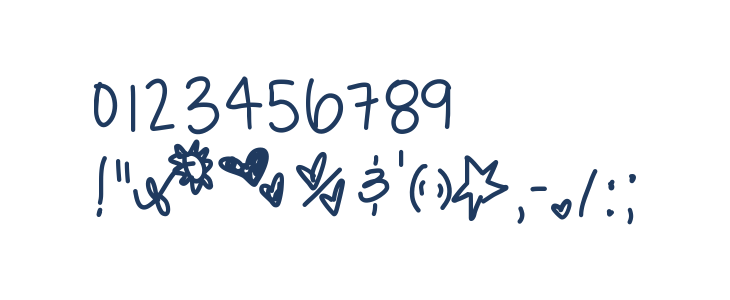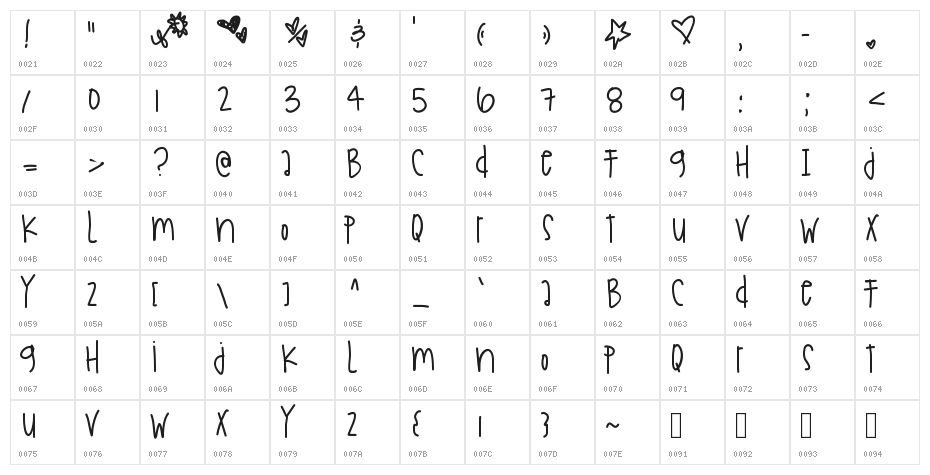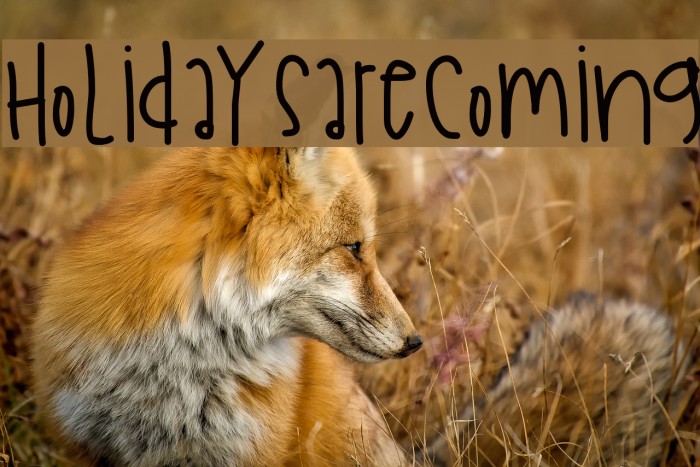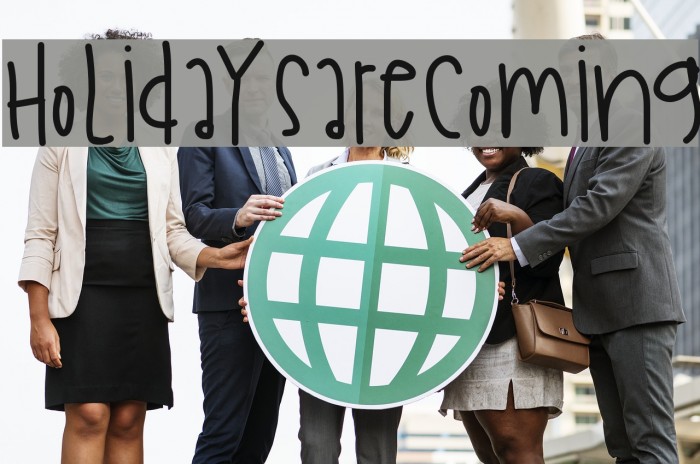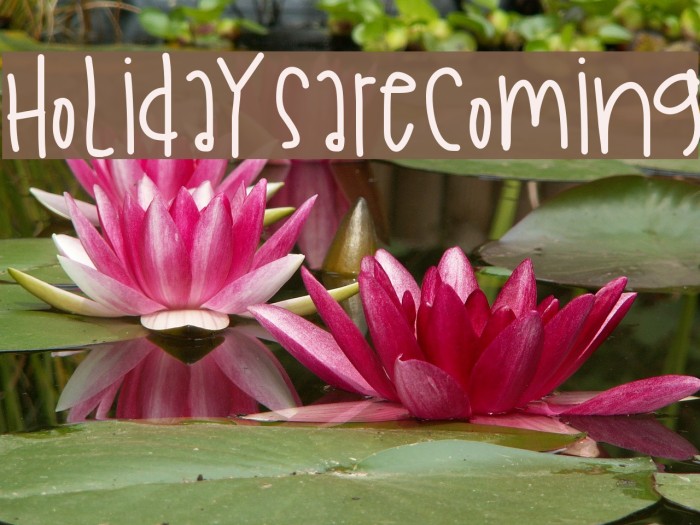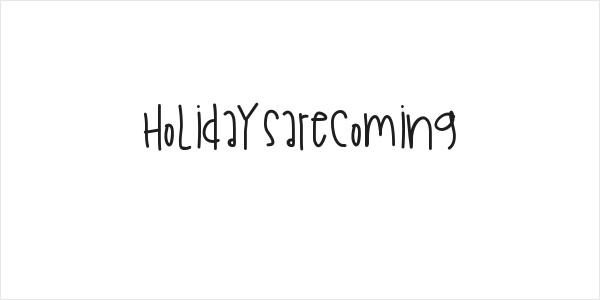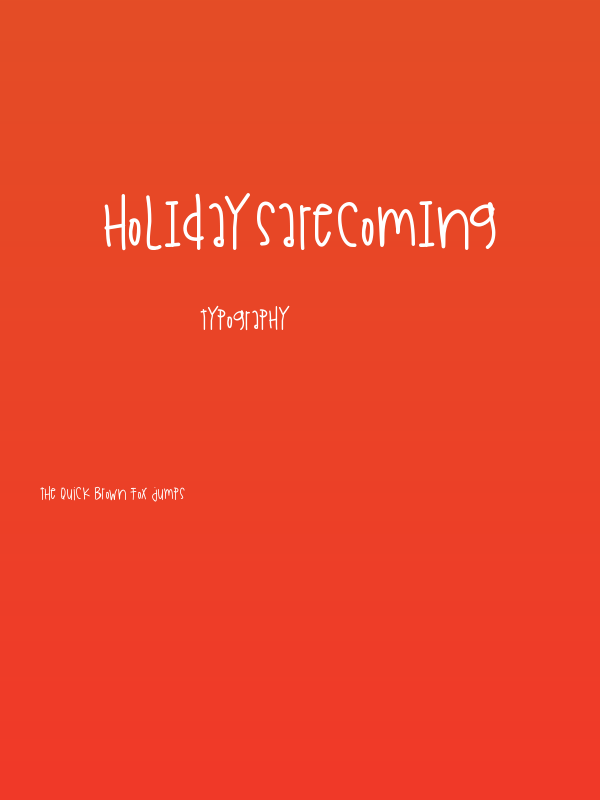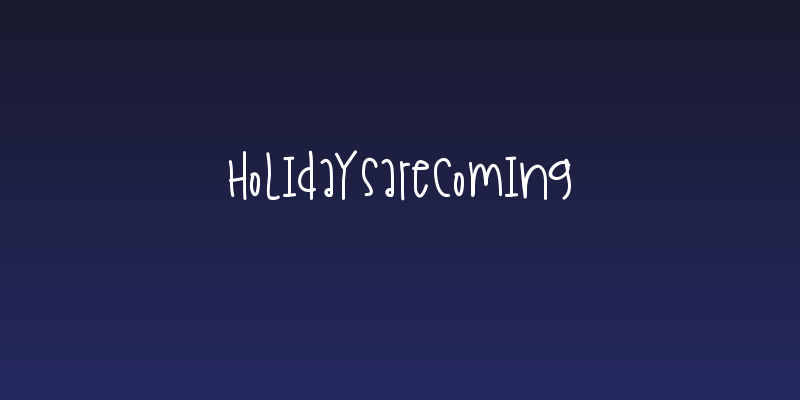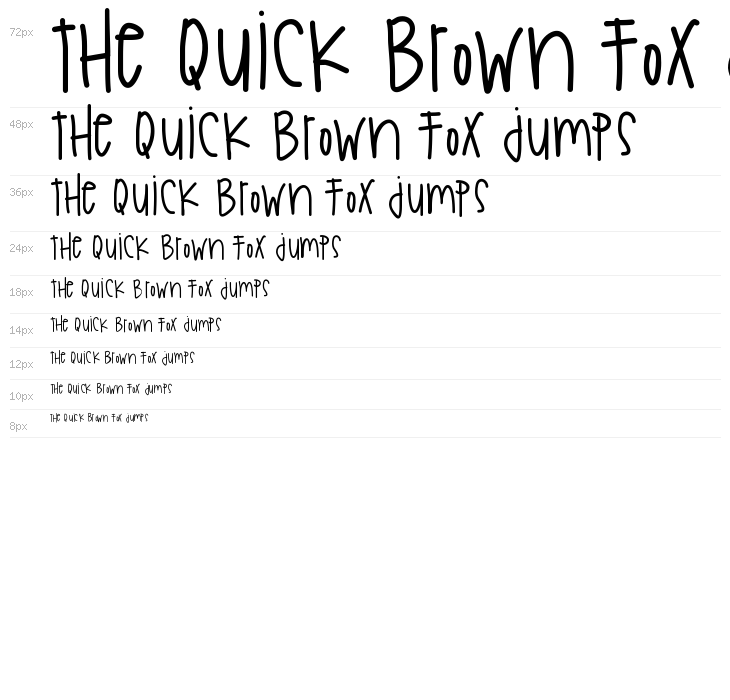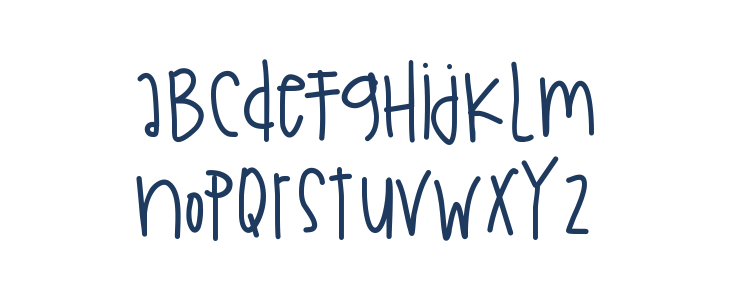
HolidaysAreComing Font
HolidaysAreComing Description
This playful and whimsical font features a handwritten style with a casual and friendly appearance. The characters are slightly irregular, giving it a personal and informal touch. The strokes are consistent in width, contributing to a cohesive look across all letters and numbers. The font includes a full set of uppercase and lowercase letters, numerals, and a variety of special characters, including playful symbols like hearts and stars. Its informal style makes it ideal for projects that require a personal or fun touch, such as greeting cards, children's books, or playful branding.
| Use Case | Headlines, Invitations, Greeting Cards |
| Proposed Projects | Ideal for greeting cards, children's books, playful branding, and informal invitations. |